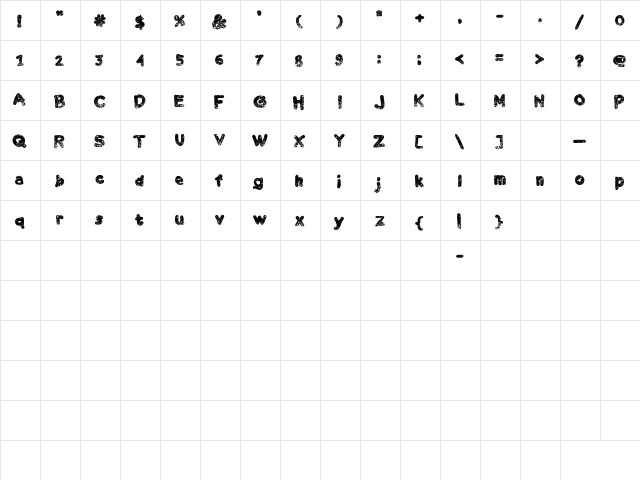
Chalk Scratches Rough Bold
| Designer | Fandi Ahmad |
Design Context for Chalk Scratches Rough Typeface
Chalk Scratches Rough embraces imperfection — its rough, textured character adds raw authenticity to designs that want to feel lived-in and unconventional.
Suited to punk-influenced zines, underground music branding, streetwear, and raw, anti-corporate design.